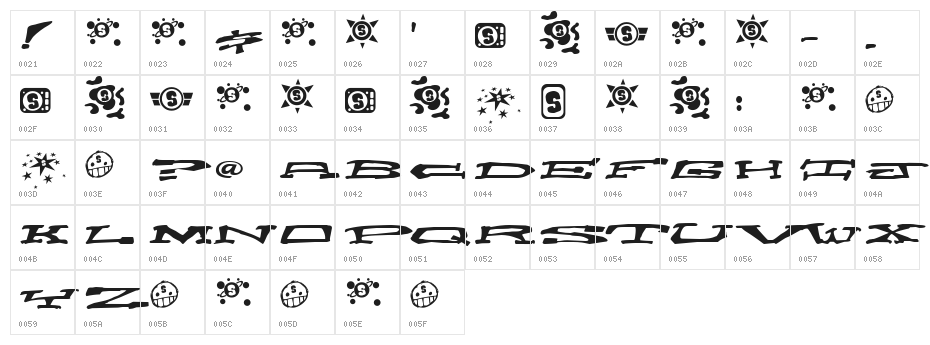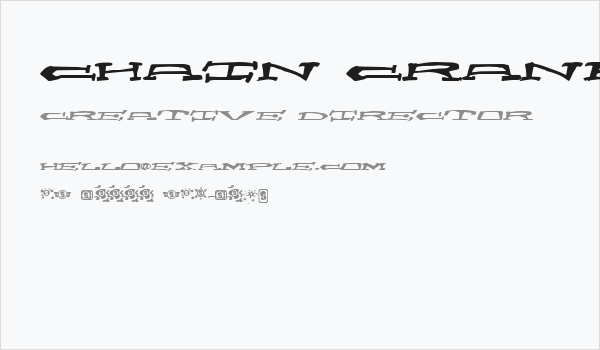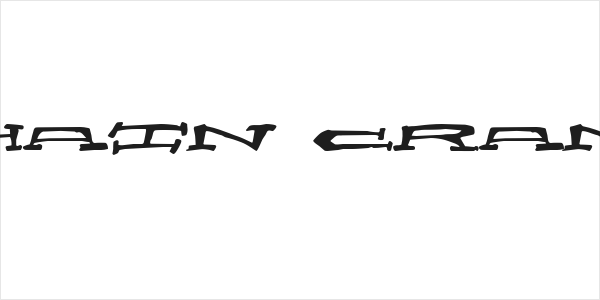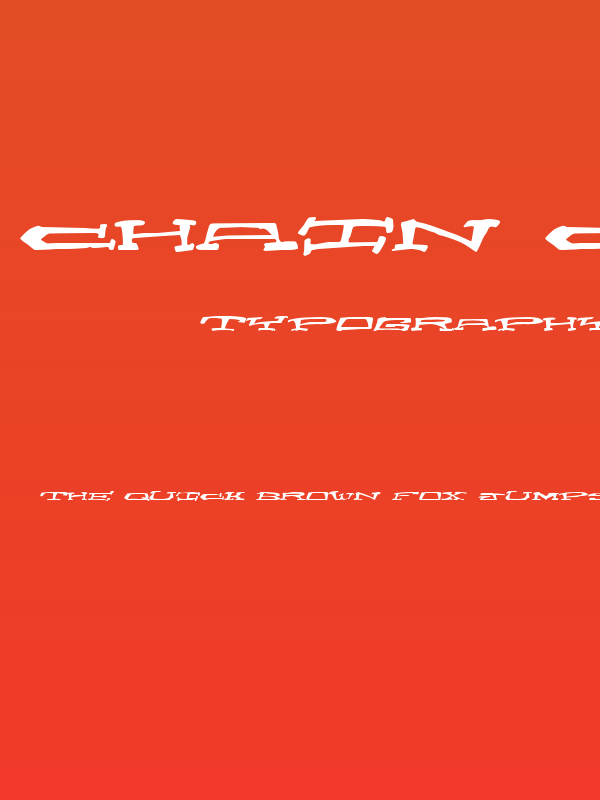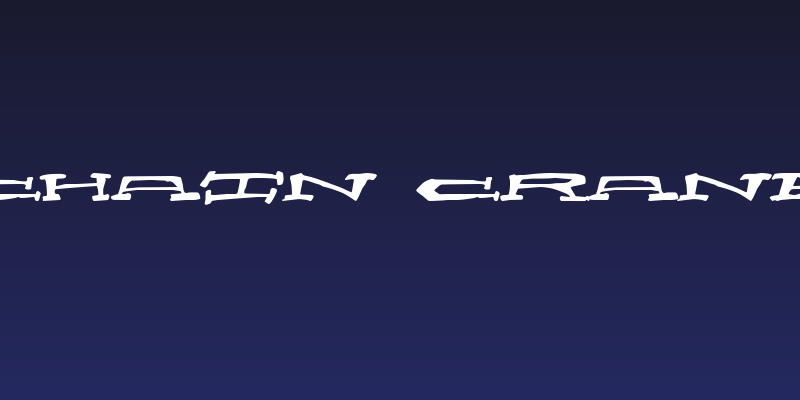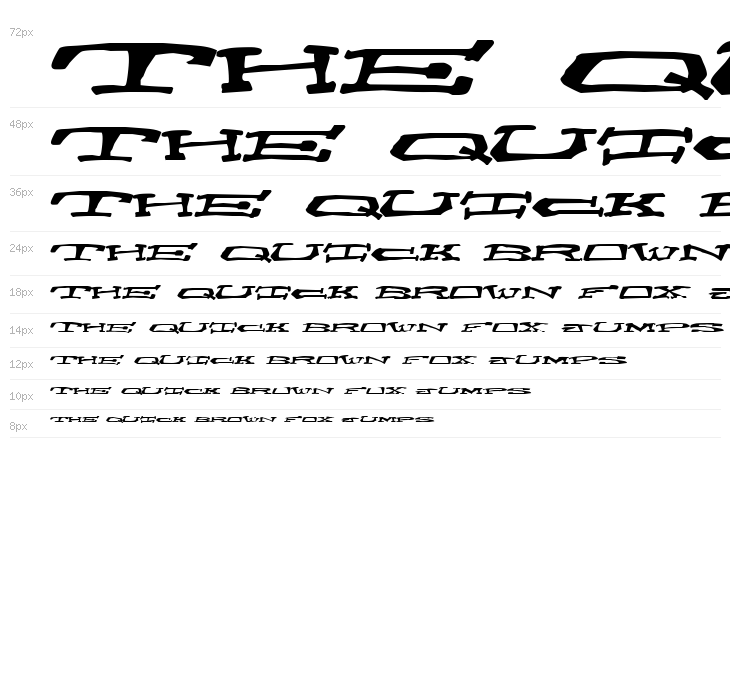
Chain Crank Font
Chain Crank Description
This font features a bold and edgy design with a mechanical, industrial feel. The characters are stylized with sharp angles and unique embellishments, resembling gears or chains, which give it a distinctive, rugged appearance. The uppercase letters are particularly striking, with intricate details that suggest movement and energy. The lowercase letters maintain the same thematic elements, ensuring consistency across the font. The numbers and special characters are equally bold, incorporating similar design motifs that enhance the overall aesthetic. This font is perfect for projects that require a strong, dynamic presence.
Overall StyleModern, Industrial
Proposed ProjectsIdeal for branding, posters, automotive designs, and any project needing a mechanical or industrial touch.